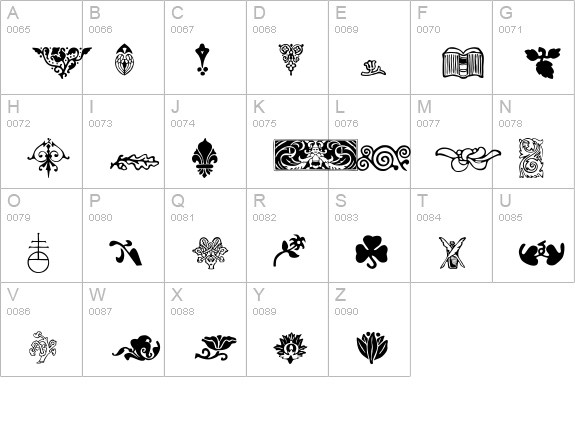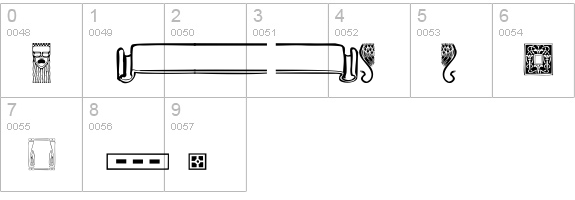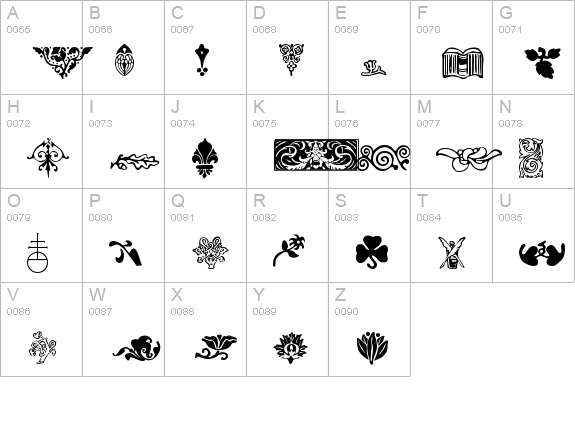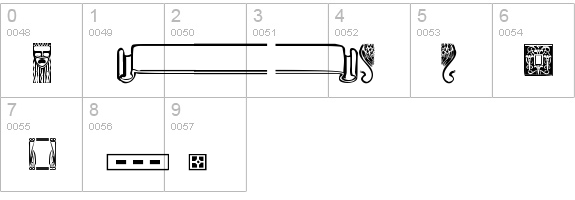
Arts and Crafts Ornaments Two font is a stunning display font that exudes elegance and charm. This ornate font is perfect for adding a touch of sophistication to your design projects. With intricate details and decorative elements, Arts and Crafts Ornaments Two font is sure to make a statement. The best part? Arts and Crafts Ornaments Two font is completely free to download at FontsMarket.com! Take advantage of this amazing offer and enhance your creations with this beautiful font today. Whether you're working on invitations, posters, or any other project that requires a touch of class, Arts and Crafts Ornaments Two font is the perfect choice. Download it now and let your creativity shine!